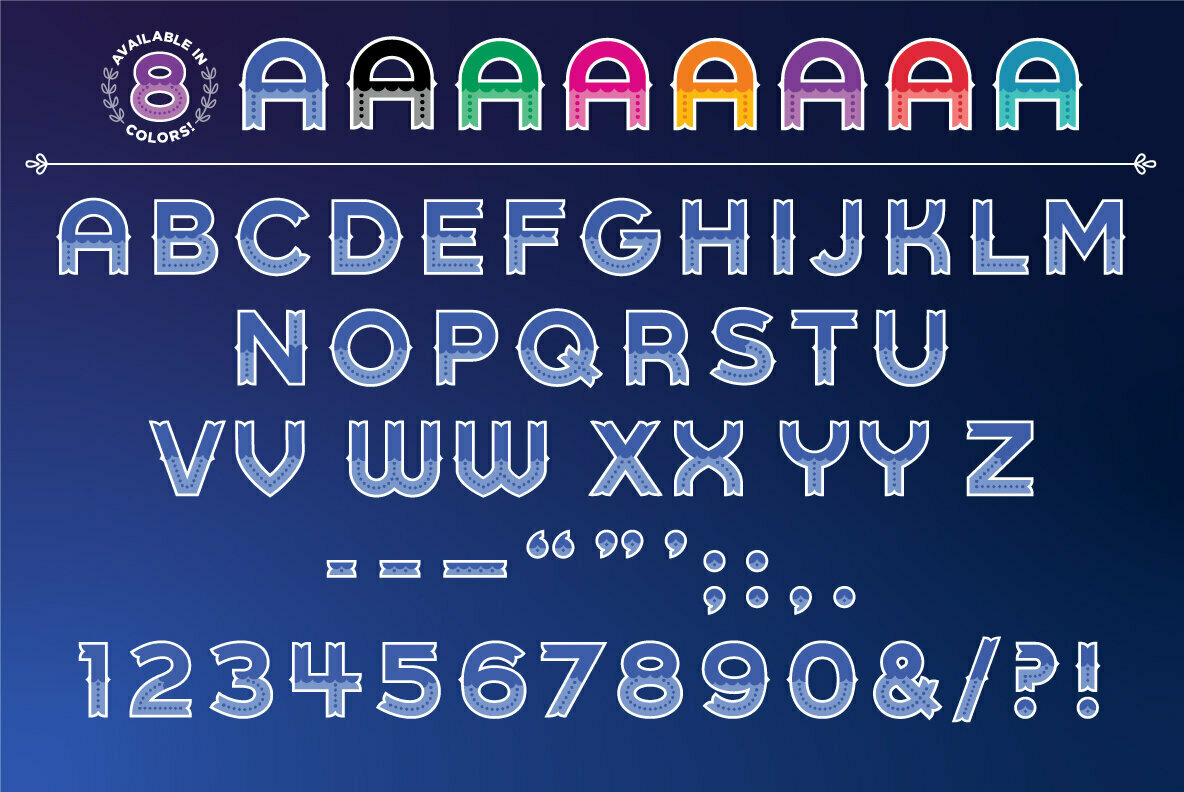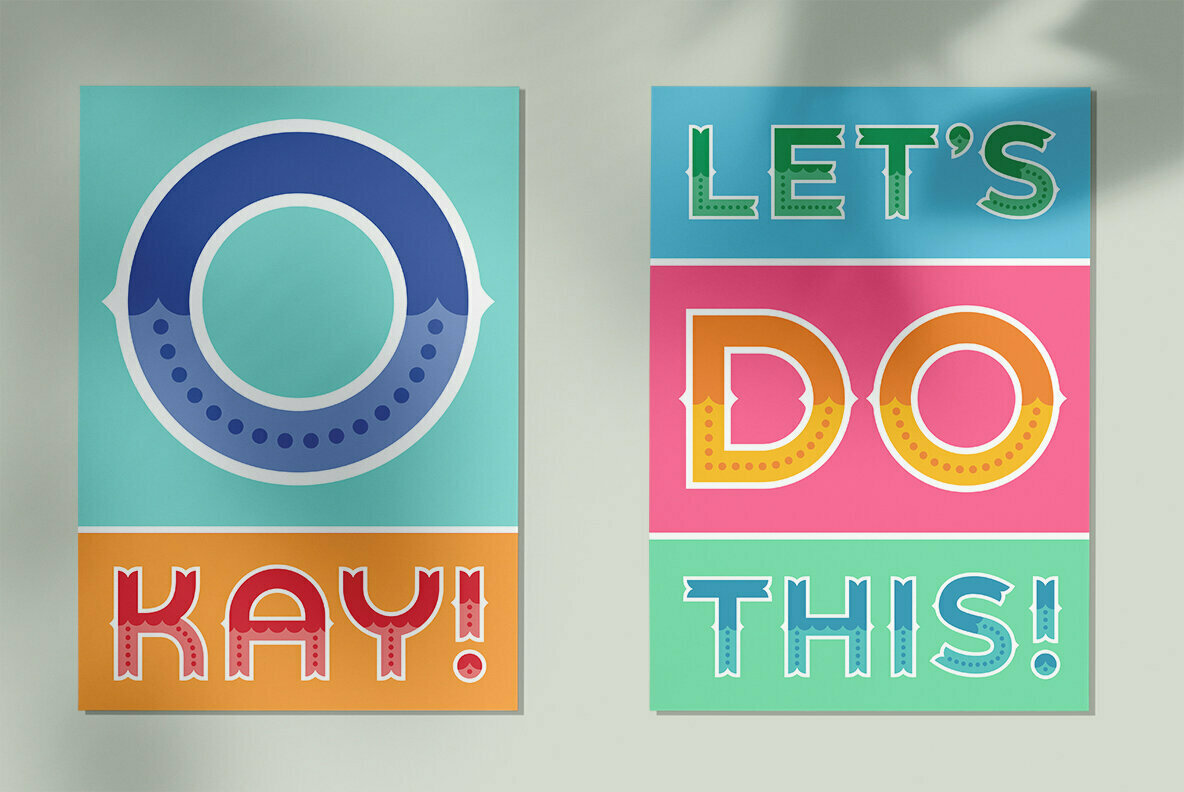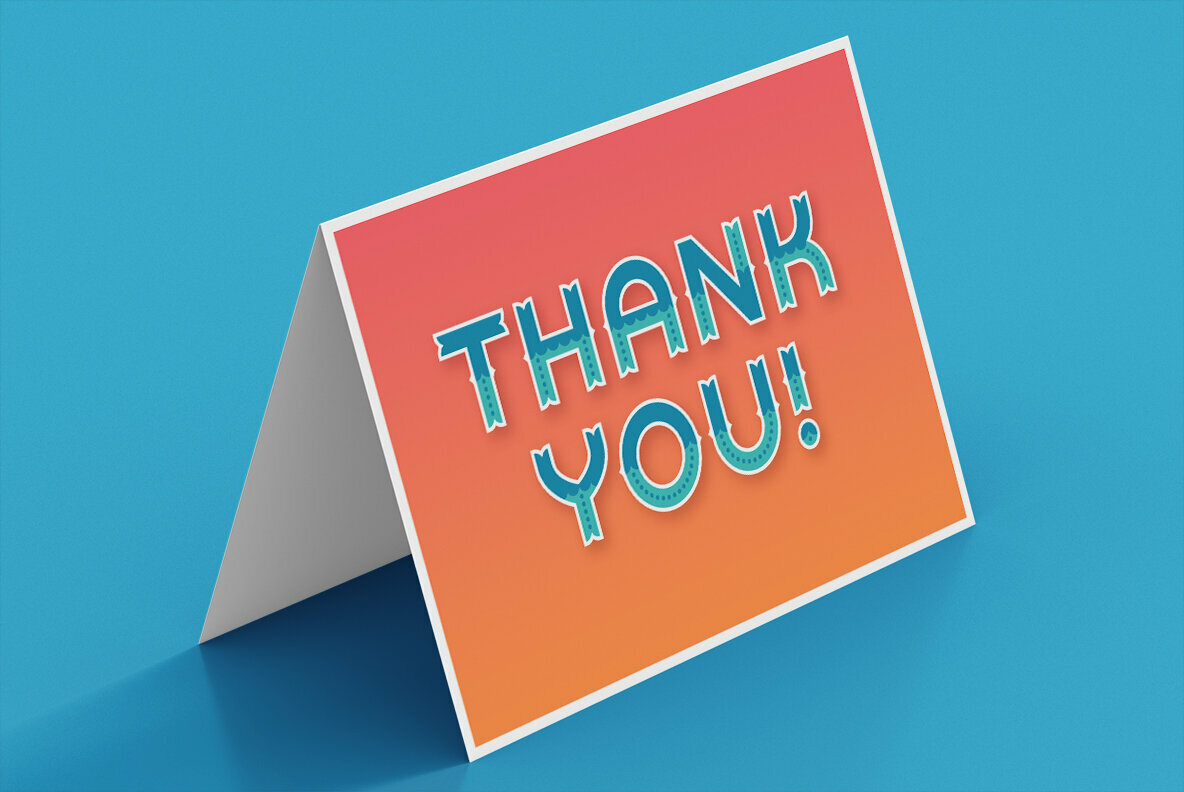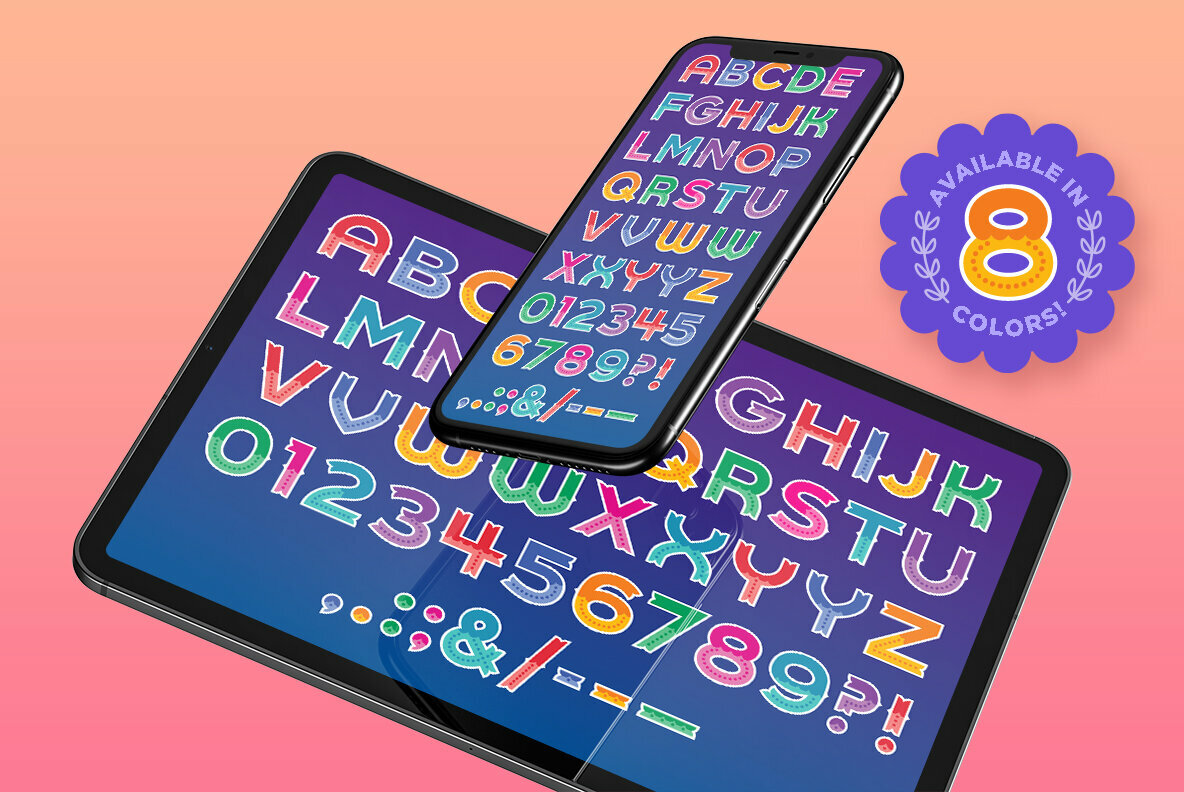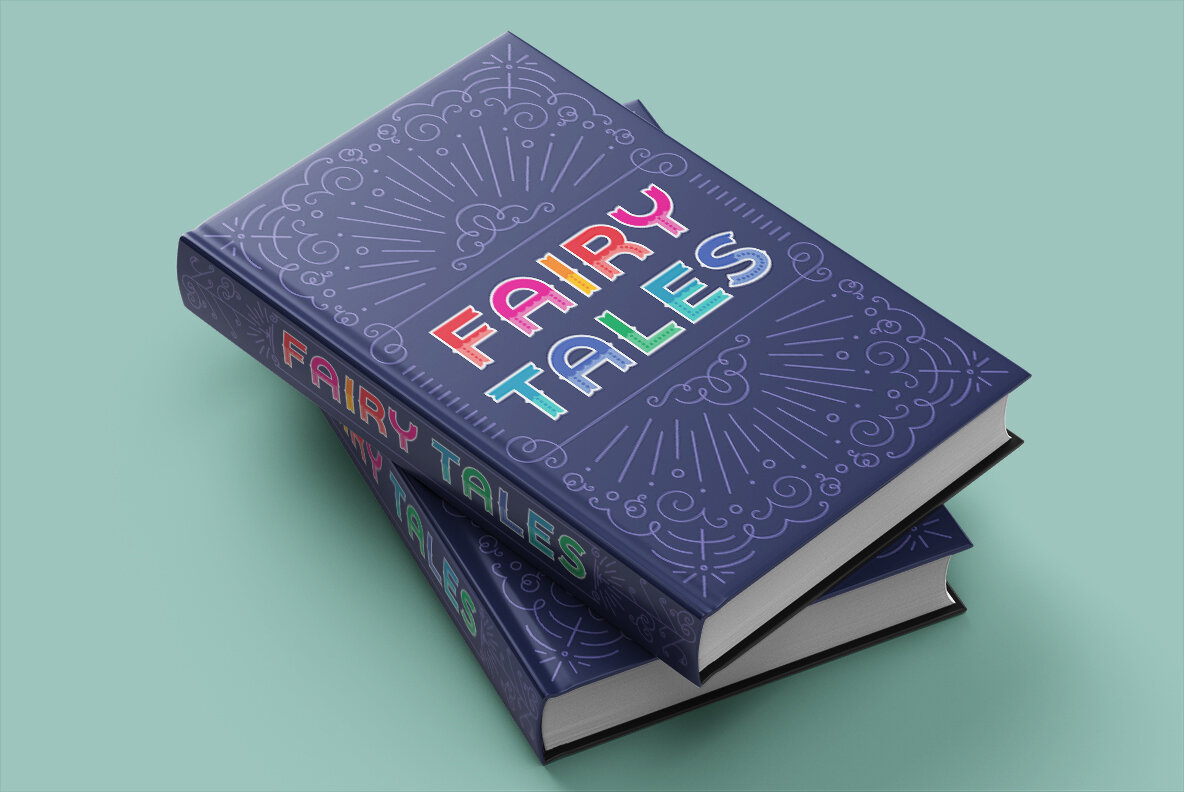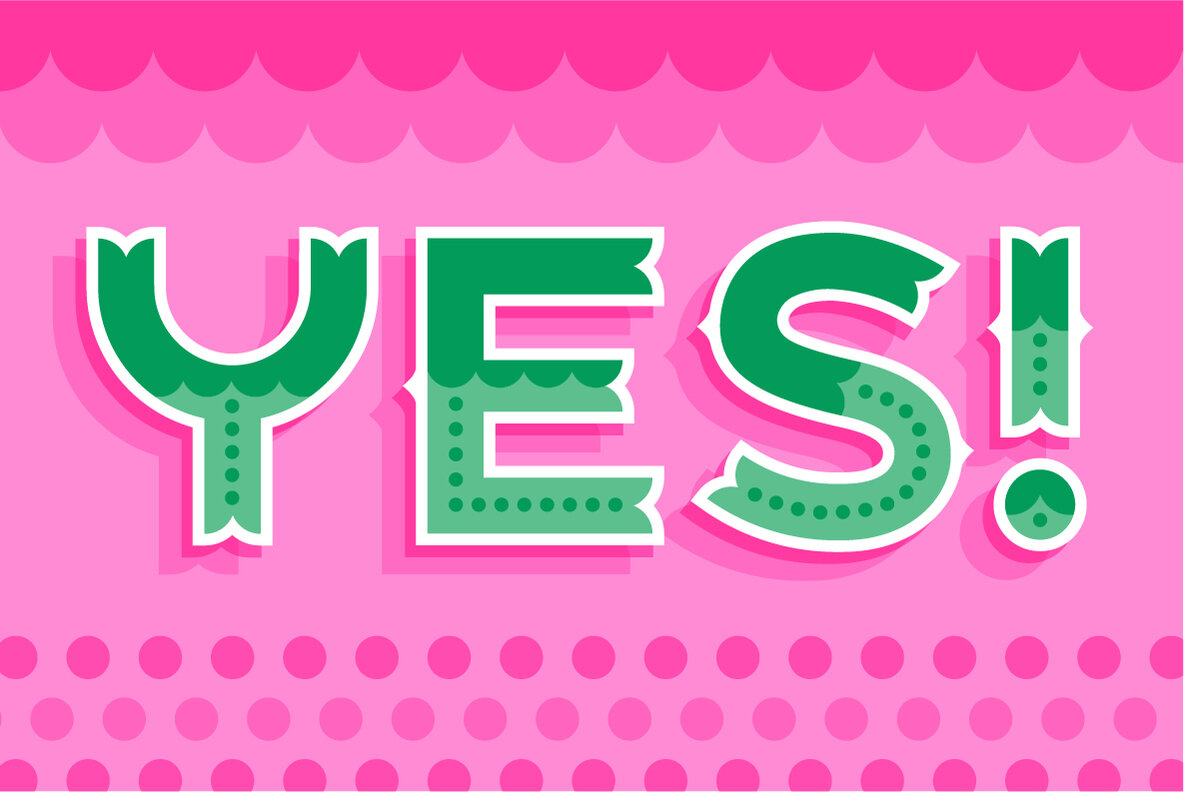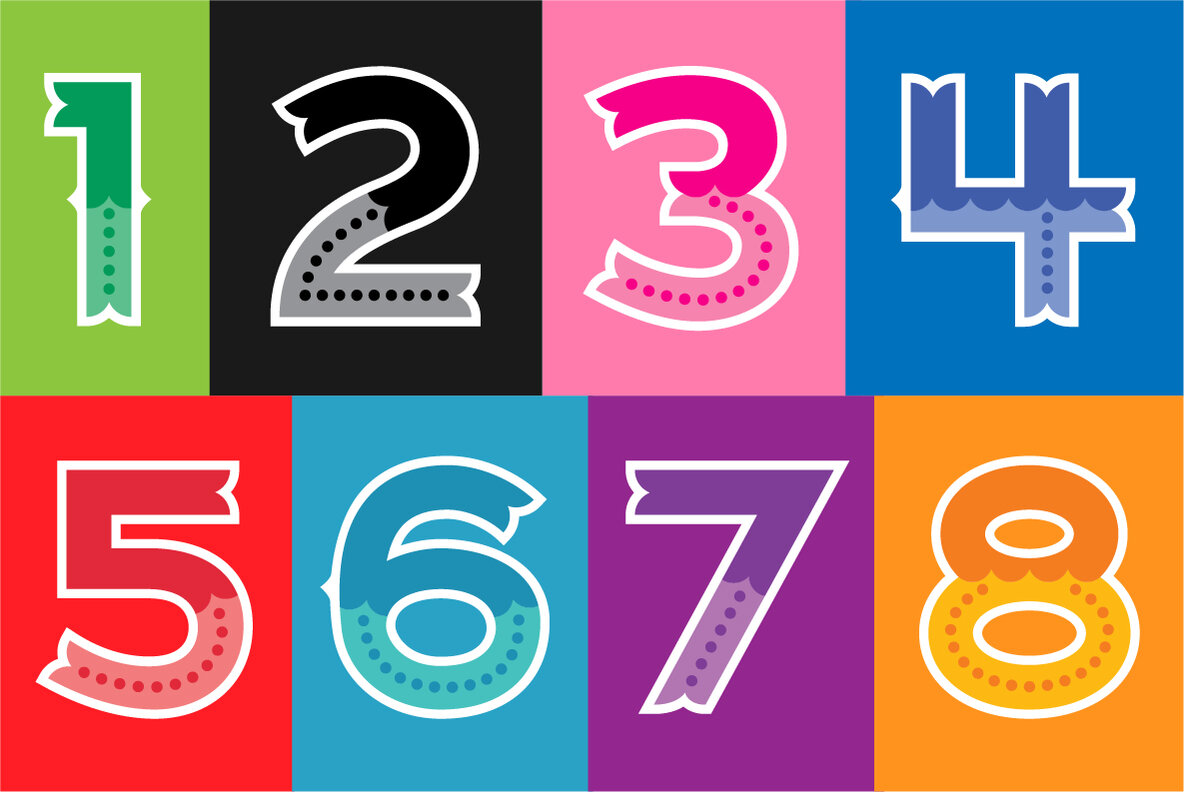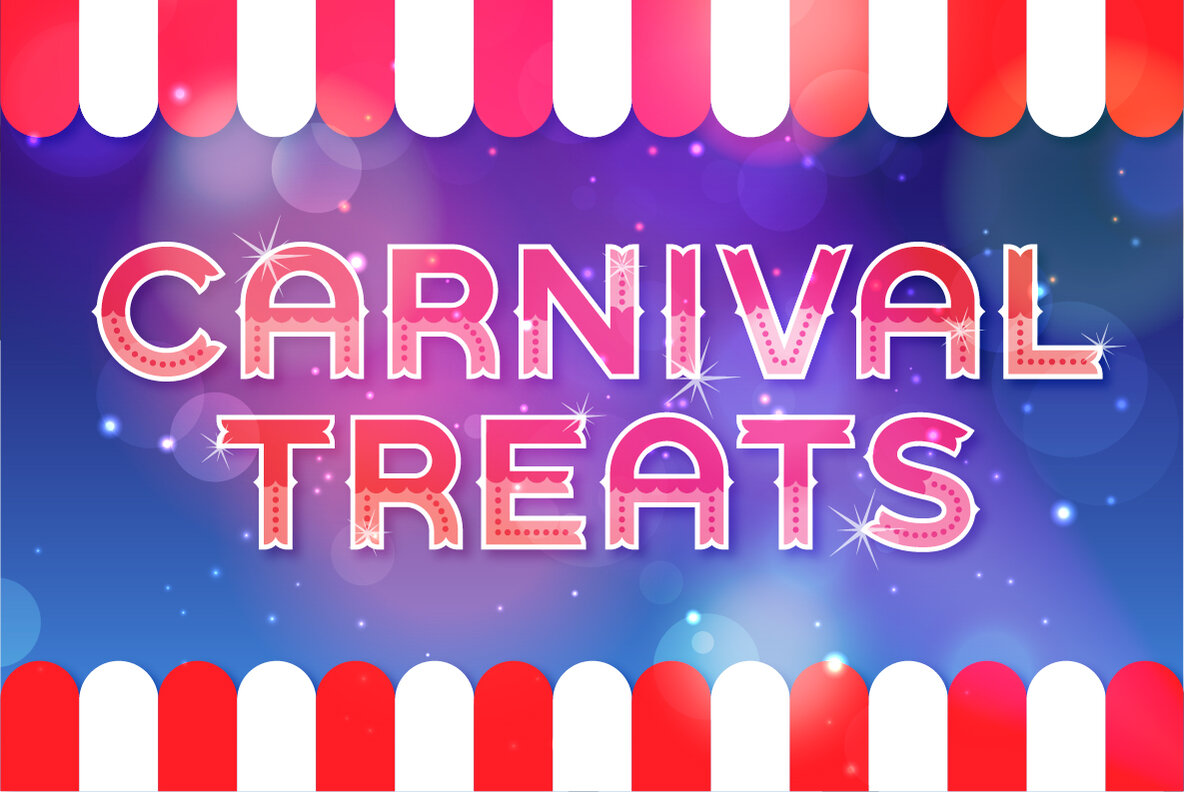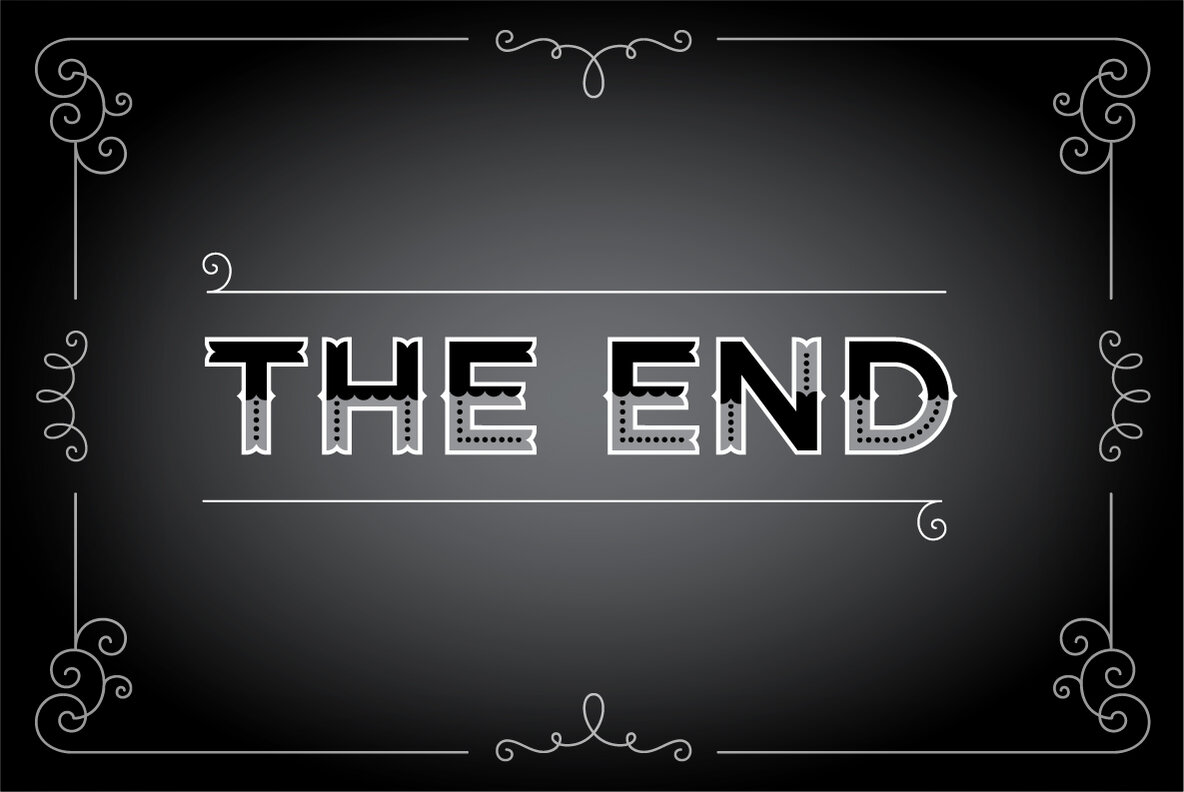
Happy Heart is an opentype SVG font that was birthed while I was in a painfully boring meeting and the only thing that was able to save me was my wandering mind and notebook. Inspired by ornate drop caps of beloved fairy tales and story books, as well as circus and carnival type, Happy Heart shapes its reverence into modern celebratory letterforms.
Happy Heart comes in 8 colors, with alternative versions offered for the letters V, W, X and Y. Because this is a decorative display font, characters provided are limited to all caps, numbers, and a handful of punctuation useful in titles. Unlike its partner font, Happy Heart Outline, Happy Heart is meant to be used against non-white backgrounds so that the white outer shapes can be seen.